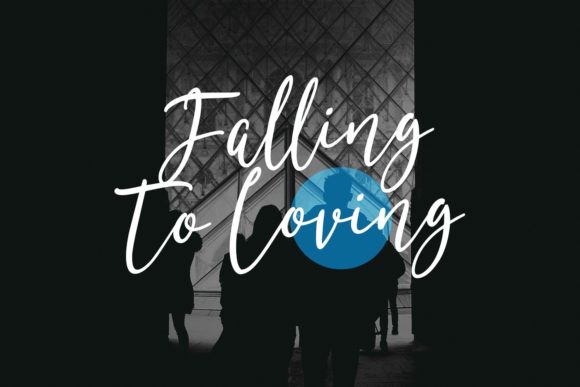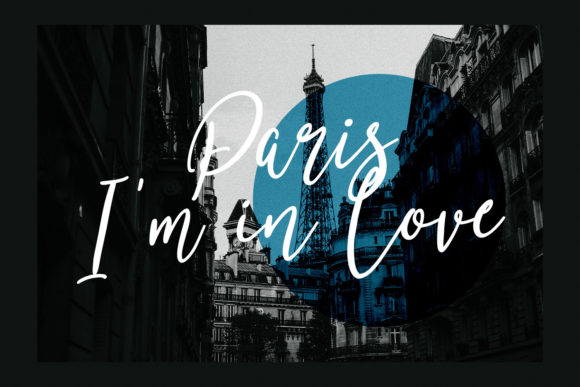
Montosal Font
db-ku.com - Script & Handwritten -- Montosal is a cursive signature script font. It features regular contrast strokes, fun characters, ligatures and alternates. No matter the topic, this font will be an incredible asset to your fonts’ library, as it has the potential to elevate any creation.